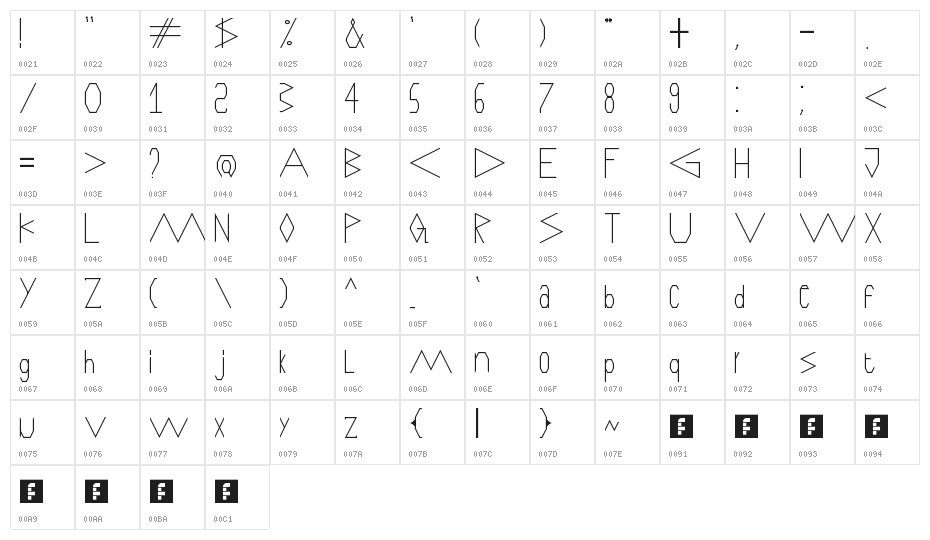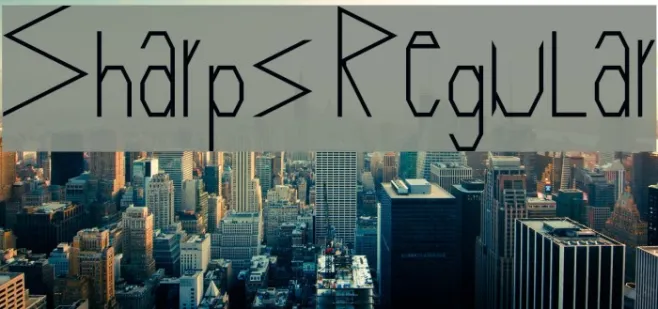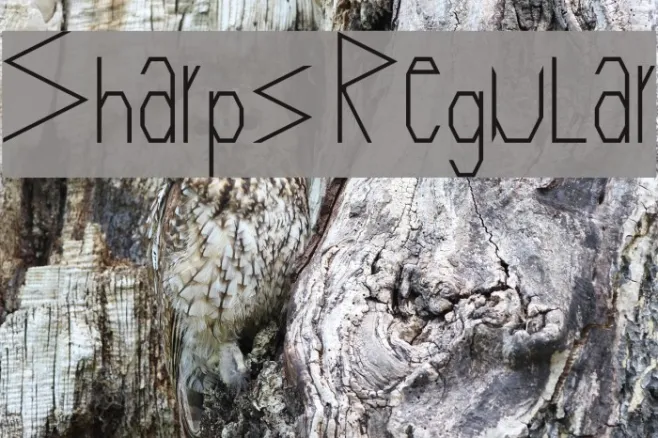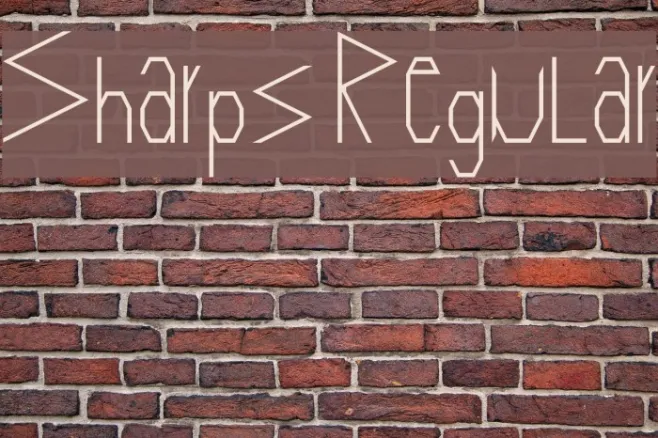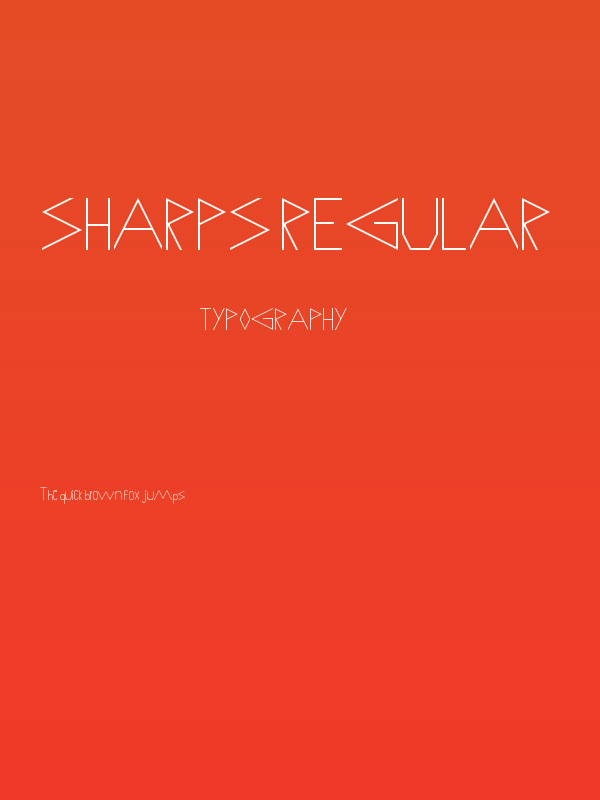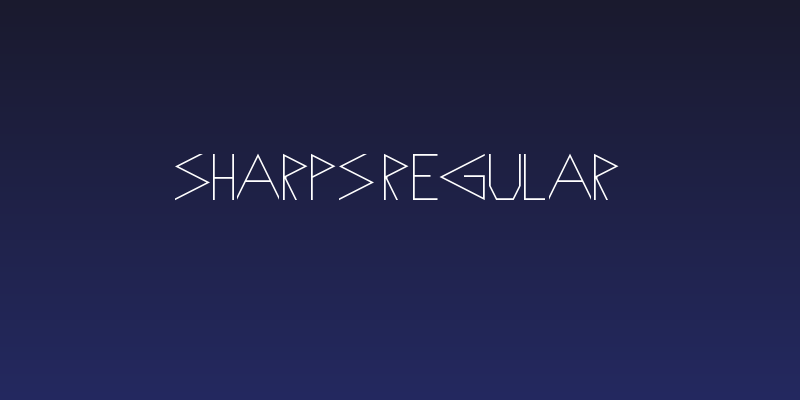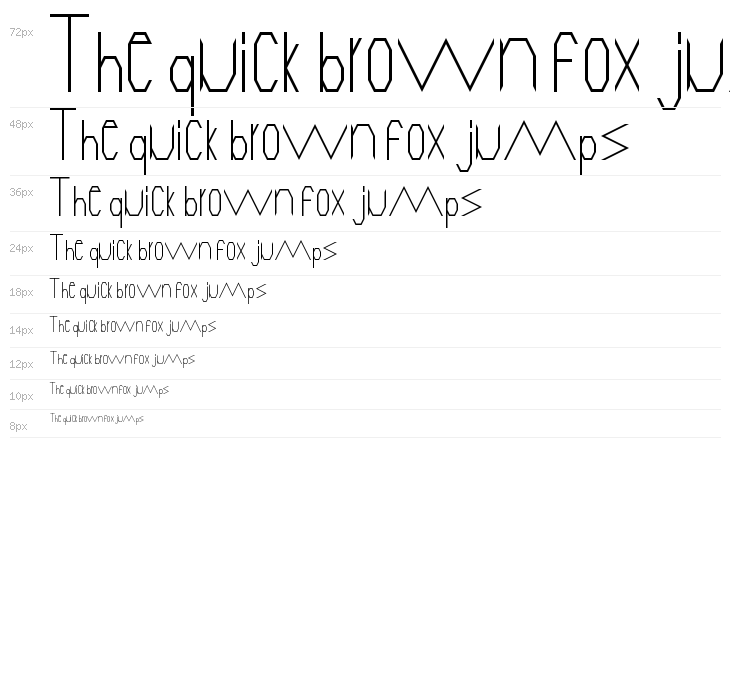
Sharps Regular Font
Sharps Regular Description
This font features a distinct geometric and angular design, characterized by sharp edges and clean lines. The uppercase and lowercase letters maintain a consistent angularity, giving the typeface a futuristic and edgy appearance. The numerals and special characters follow the same design principles, ensuring uniformity across all characters. The font's unique style makes it stand out, with a modern and somewhat industrial feel. Its sharp angles and linear strokes create a sense of precision and clarity, making it suitable for projects that require a bold and striking visual impact.
| Proposed Projects | Ideal for branding, posters, album covers, and any design needing a futuristic or edgy aesthetic. |